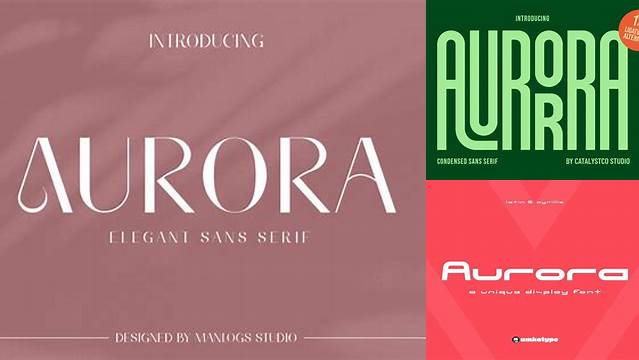
Aurora Medium Font: Understanding the Basics
Aurora Medium font, at its core, is a typeface characterized by its balanced and readable design. It typically features a medium weight, making it suitable for a wide array of applications, from body text to headings. Aurora Medium often presents a modern aesthetic, which can add a touch of elegance and professionalism to your projects. The beauty of this font lies in its versatility. You can use it in both print and digital media, and it will maintain its clarity and visual appeal. When considering an Aurora Medium font free download, it's essential to understand its licensing. Many fonts offer free versions for personal use, but you might need to purchase a license for commercial projects. Always double-check the license agreement before using any font, ensuring you are compliant with the terms of use. This carefulness prevents any legal issues down the line. In addition to the basic characteristics, an important aspect of the font is its kerning, the space between individual characters. Good kerning ensures that the font is easy to read and prevents any words from appearing cluttered. This attention to detail makes Aurora Medium a good choice for various projects. Its legibility makes it perfect for things like articles, presentations, and websites. The key is that Aurora Medium strikes a nice balance. It's not too heavy, not too light, and it provides a nice reading experience. Its characteristics are all designed to allow your content to be easily read and enjoyed, which will ultimately improve the effectiveness of your designs. Remember, choosing the right font is not just about aesthetics. It’s about effective communication. Aurora Medium helps you achieve that.
Exploring the Design Elements of Aurora Medium
Let's explore the intricacies of Aurora Medium. This font is known for its clean lines and balanced proportions, making it easy on the eyes. Its medium weight contributes to its versatility, making it suitable for both headlines and body text. The design elements of Aurora Medium include carefully crafted letterforms, which give the font its distinct personality. Each character is designed to promote readability. The spacing between letters and words is optimized to create a harmonious visual experience. You will notice that there are no jarring or distracting features, allowing your audience to focus on the content, not the font itself. The font often includes a range of weights and styles, like bold and italic variations, allowing for design flexibility. These variations are useful for highlighting important information or adding visual interest to a layout. This is a great characteristic. The Aurora Medium also provides a sense of sophistication. The font is modern, without being overly stylized. It manages to be both approachable and professional, a combination that makes it so widely used. The design choices made when creating Aurora Medium are geared towards creating a balanced and functional typeface. It's about striking a nice balance between aesthetics and usability. This focus on detail makes Aurora Medium a great choice for those looking for both style and functionality.
The Versatility of Aurora Medium Font in Different Applications
Aurora Medium font is a versatile typeface, guys, that's suitable for many applications. It excels in both print and digital media, making it a great option for various projects. In print, Aurora Medium is commonly used for books, magazines, and brochures. Its excellent readability makes it easy to use in long-form content. The balanced design ensures that it is pleasing to the reader's eye, even over extended reading periods. For digital applications, Aurora Medium is a favorite for website design, presentations, and social media graphics. It is a great choice for creating headings, subheadings, and body text, while maintaining a consistent visual style across all mediums. The adaptability of the Aurora Medium also makes it perfect for different brands and businesses. It adapts well to various design themes, and can be customized to match specific brand guidelines. Whether you're working on a personal project or a commercial venture, Aurora Medium provides the visual quality and functionality that you need. The font's versatility is really its strong point, making it a reliable and attractive option. It makes any content look good.